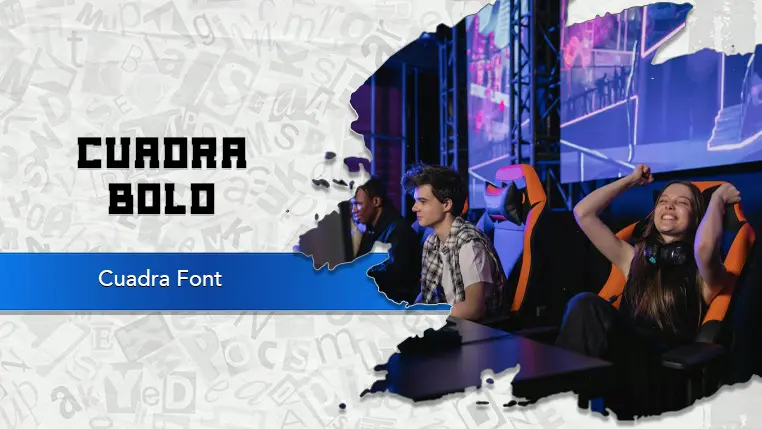
The Cuadra font family may be ideal for you if you enjoy working on an artistic design project. The lively, expressive look of this typeface, which was created by Don Marciano, makes it ideal for T-shirt and Apparel Design. The font's strong presence and readability make it ideal for headlines and titles on posters, banners, and other large-format designs. Its distinctive style makes it perfect for creating memorable logos, especially for brands with a retro or sporty aesthetic. Its energetic and athletic vibe is a natural fit for sports-related graphics, video game titles, and e-sports branding. and other light-hearted visual projects.
Bold are the one primary font styles of the Cuadra font family. You may build dynamic, visually appealing text layouts with the distinct flair that each style offers. With crisp, readable lines and a relaxed tone.